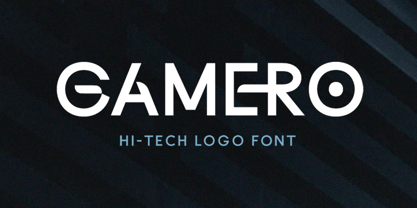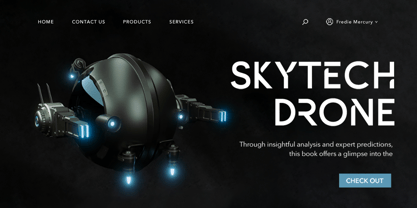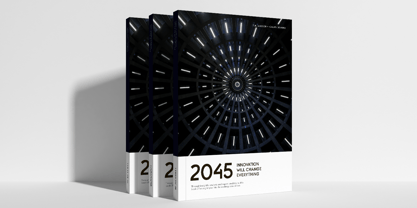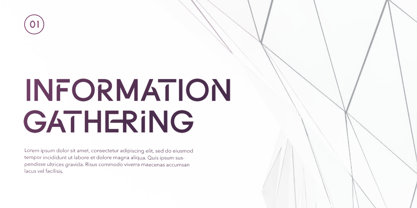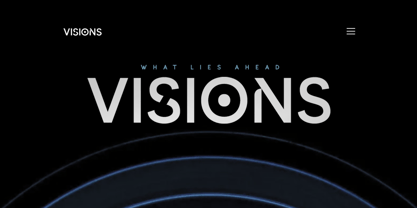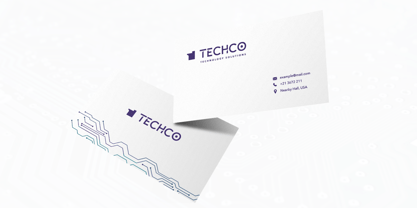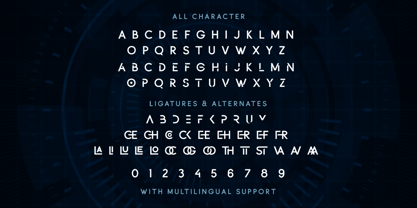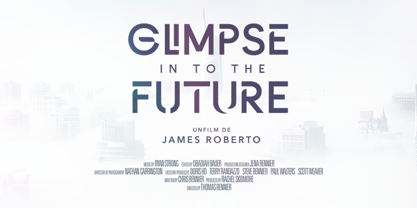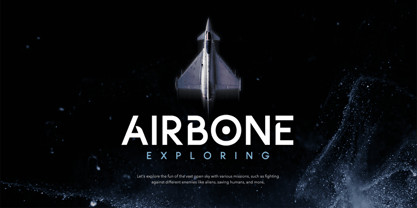
Gamero
by Bale Type
The Gamero Font Family was designed by Sarid Ezra, Dzikrul Aulia and published by Bale Type. Gamero contains 1 styles.
Gamero is a hi-tech logo inspired font with unique and futuristic looks. With sans based, this font also including alternates and ligatures that you can use for more options for your logo project. With stylish fracture in lowercase mode, you can combine the uppercase and lowercase to make your logo more stunning. You can use this font for logo, game, movie poster, and futuristic event. This font also support multilingual.
Designers: Sarid Ezra, Dzikrul Aulia
Publisher: Bale Type
Foundry: Bale Type
Design Owner: Bale Type
Gamero